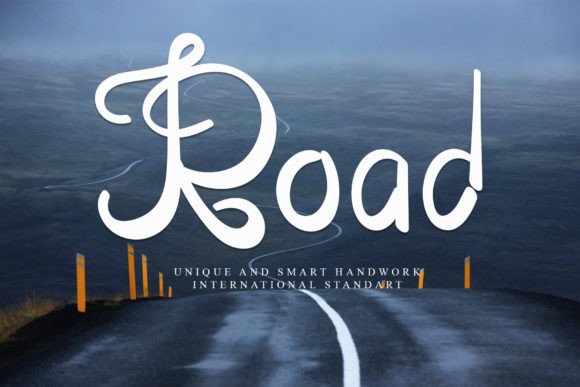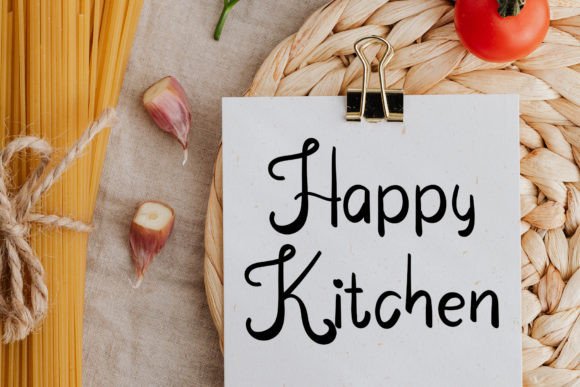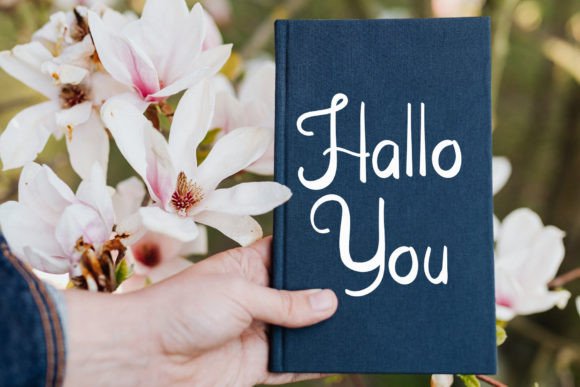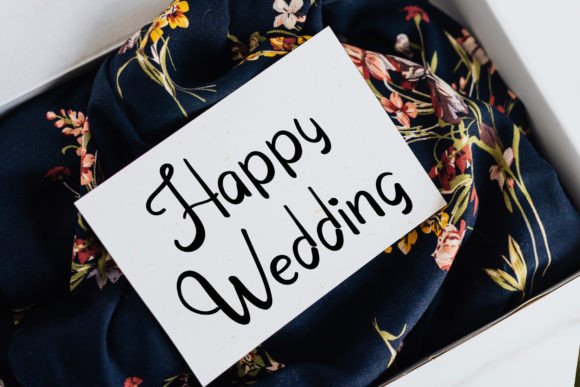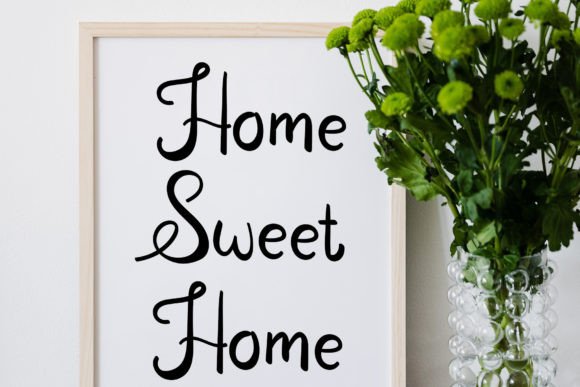
Road Font
✍️ About Road Font
Road is a refined handwritten font that combines elegance with personal charm. Designed with smooth curves and balanced strokes, Road is perfect for adding a human touch to your most meaningful and stylish projects. Whether you’re creating wedding invitations, birthday cards, event signage, or product packaging, this font delivers visual beauty and timeless sophistication.
With Road, you get more than just a script font. You get a beautifully crafted typeface that can elevate any design into something truly heartfelt and memorable. It’s not overly ornate, yet full of grace—making it the ideal blend of simplicity and sophistication.
🎯 Perfect for a Variety of Projects
Road Font was designed to be flexible. Its gentle movement and handwritten look work well in both formal and casual settings. It can easily adapt to any project that needs a personal, warm, and elegant touch.
Ideal for use in:
• Wedding Invitations & Save-the-Date Cards
• Birthday & Holiday Greeting Cards
• Elegant Logos and Personal Branding
• Packaging & Label Designs
• Event Signage and Table Menus
• Digital Marketing Banners
• Quote Art & Social Media Graphics
• Stationery & Journals
Whether you’re designing for print or screen, Road ensures your message is both stylish and approachable.
✨ Features and Benefits
Road Font has been built with careful attention to detail. Every curve, loop, and stroke is designed to feel smooth, clean, and visually pleasing.
Font Highlights:
• Handwritten script style
• Elegant and consistent letterforms
• Uppercase & lowercase characters
• Numbers & standard punctuation
• Multilingual support
• PUA encoded for access to alternates
💡 Why Choose Road Font?
Fonts speak louder than words—and Road speaks with elegance and warmth. It’s ideal for designers, brand owners, or creative entrepreneurs who want a font that adds emotional weight without overwhelming the design. Its simplicity allows it to blend beautifully with other graphic elements, while its handwritten essence keeps it fresh and organic.
If your project needs a delicate, expressive touch that looks both modern and heartfelt, Road Font is the perfect choice. It adds a custom-crafted look to your typography without compromising readability.